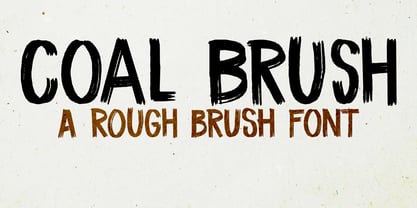
Coal Brush
by Hanoded
About Coal Brush Font Family
Coal Brush is a bit of a misleading name. It looks as though it was made with a brush, but it was, in fact, made with a almost dried out old marker pen. But a font named ‘dried out old marker pen’ doesn’t really fly, so I decided to pimp the name. There you have it, you can’t even trust an honest typographer! Marker pen or brush, Coal Brush is a very sweet little font. It is all caps, but upper and lower case differ and can be mixed freely. Plus there’s a hidden stash of alternates for the lower case letters and an alternate ampersand! I actually threw that in to make up for my lie. So, use it for your books, your posters, your rap albums, rock operas, grilled food restaurants and designer BBQ sauces. It’s yours for the taking!
About Hanoded
Hanoded is a type foundry based in The Netherlands and run by David Kerkhoff. After finishing his journalism studies, David traveled extensively and ended up in Israel where he stayed for some years. David had a lot of jobs – zookeeper, goldsmith, artist and cook (to name a few), but settled on working as a tour guide and photographer. David specializes in hand printed typefaces and uses brushes, pens, ink and paint to create his – sometimes scary looking – fonts. He lives in a wee hamlet near the Rhine river, with his wife, three kids, a handful of extremely spoiled chickens and two guinea pigs called Cookie and Chippie.The Premium foundry page can be viewed https://www.myfonts.com/a/font/premium-font-collections/hanoded